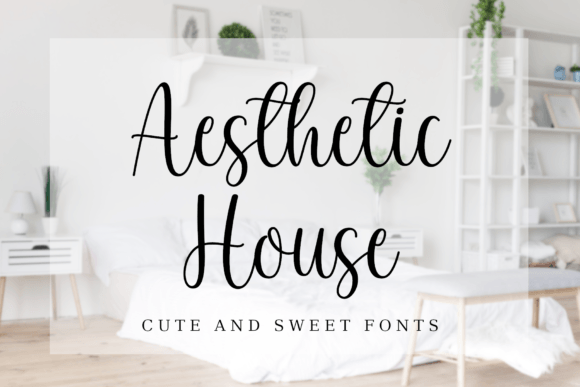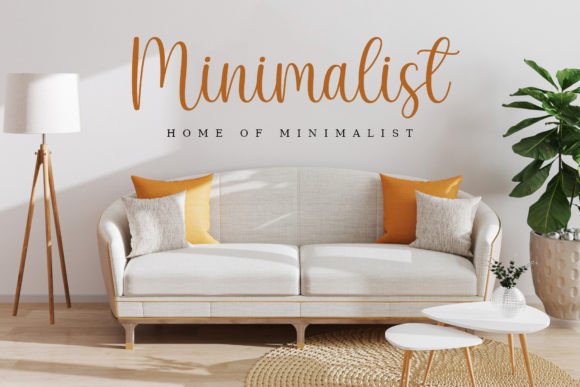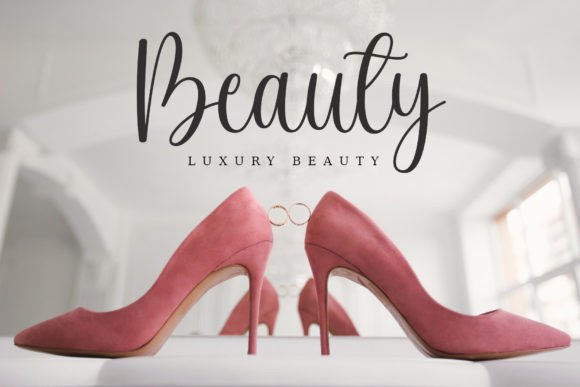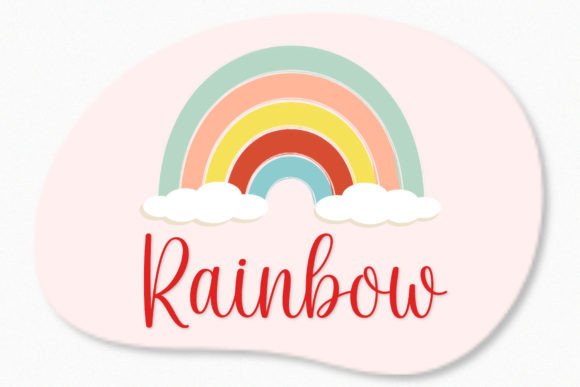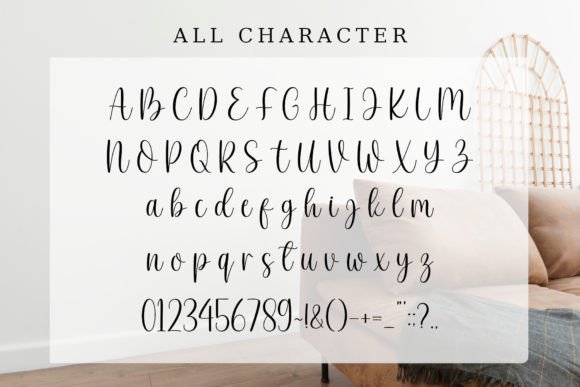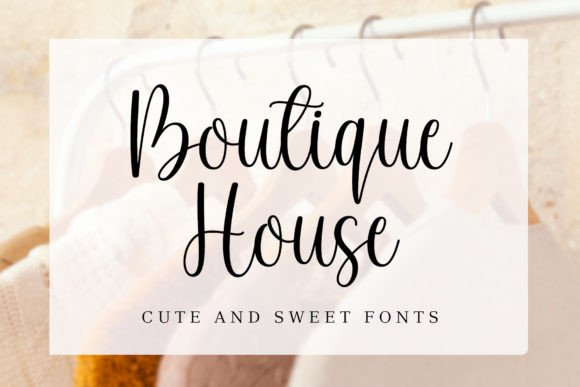
Aesthetic House Font
“Aesthetic House” is not just a font; it’s a script typeface that embraces a minimalist and sweet theme with a dynamic shape. Tailored for modern design needs, this font is well-suited for a range of applications, including posters, business cards, boutique logos, women’s magazines, and more. Let’s explore the key features that make “Aesthetic House” a fitting choice for minimalist designs.
The Minimalist Theme: “Aesthetic House” embraces simplicity and a clean aesthetic. Its minimalist theme makes it an ideal choice for design projects where less is more. The font’s simplicity ensures that it complements and enhances minimalist design concepts, creating a harmonious and visually pleasing result.
Dynamic Shape: The dynamic shape of “Aesthetic House” adds a touch of fluidity and movement to the text. This feature contributes to the font’s versatility, allowing it to adapt seamlessly to various design contexts. Whether used for business cards or magazine layouts, the dynamic shape ensures that the font remains visually engaging.
Suitable for Modern Design Needs: “Aesthetic House” is crafted with modern design needs in mind. Its contemporary style makes it well-suited for current design trends, ensuring that it aligns with the preferences of audiences looking for fresh and stylish visual elements. The font becomes a valuable asset for projects targeting modern and chic aesthetics.
Versatility: The versatility of “Aesthetic House” shines through in its suitability for diverse design applications. From posters to boutique logos and women’s magazines, the font adapts effortlessly to different contexts, making it a versatile choice for designers working on a range of projects.
In summary, “Aesthetic House” is more than just a font; it’s a design tool tailored for modern and minimalist aesthetics. Its dynamic shape, minimalist theme, and versatility make it a fitting choice for a variety of design needs, allowing you to create projects that are both stylish and in tune with contemporary design trends.